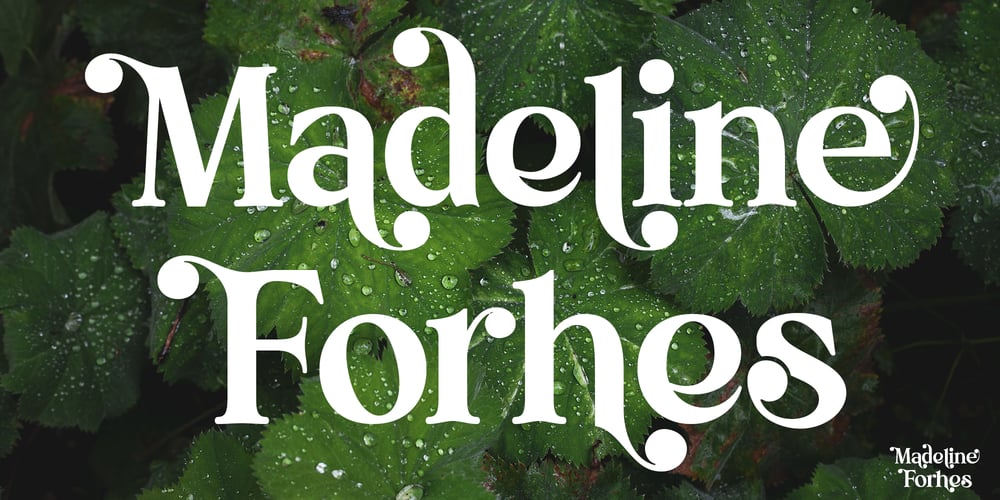
Madeline Forhes
Madeline Forhes font
Madeline Forhes Font Family was designed by Arif Fadilah and published by Luhop Creative. Madeline Forhes contains 1 styles and family package options. Madeline Forhes is a stylish and modern serif font that’s perfect for bringing a touch of sophistication to your designs. Its clean lines and contemporary letterforms create a timeless yet fresh look that’s perfect for editorial design, branding, and any project that requires a touch of elegance.